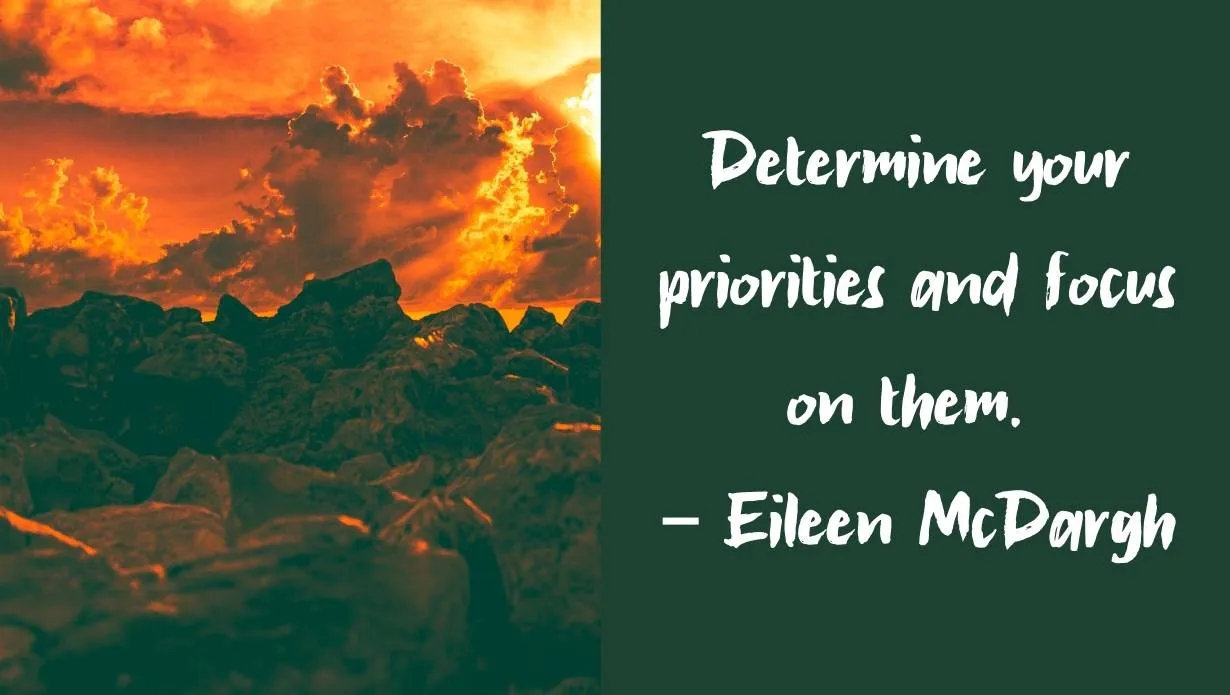
Savage Font is a type of font that contains custom-made designs often made to be asymmetrical. This design was created by ReSkull. This typeface was updated in May 2014 and has since been circulated freely on the web for use as a downloadable font.
ReSkull is a graphic designer from Toronto, Canada who works under the name SavageCoco Design. Her original motive for making Savage Font was to kind of mock all the fancy and expensive fonts that artists and producers were using in modern hip-hop and R&B. Similar font to this wonderful typeface is Porky’s Font.
| Name | Savage Font |
| Designer | ReSkull |